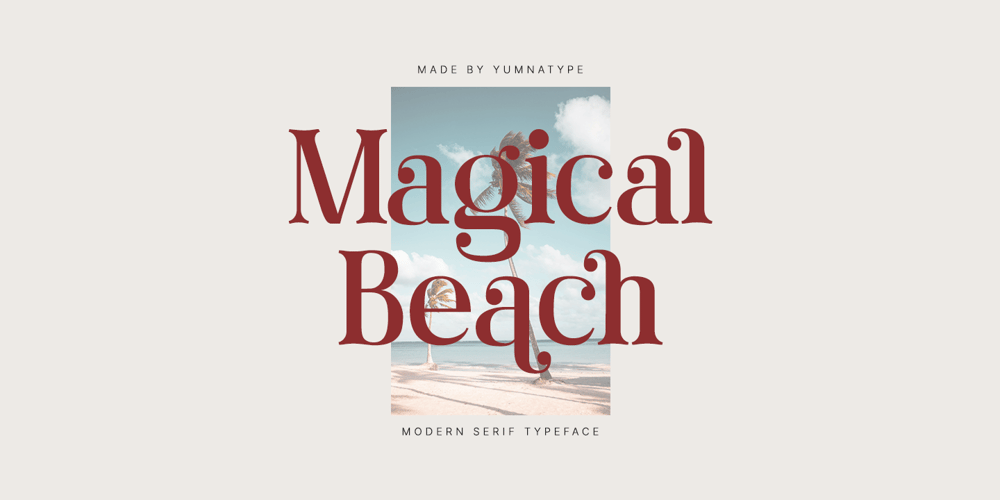
Magical Beach Font Family was designed by Donis Miftahudin and published by Yumna Type. Magical Beach contains 1 styles and family package options. Magical Beach is a captivating serif font that transports you to the enchanting shores of a modern paradise. Inspired by the natural beauty of coastal landscapes and the timeless elegance of serif typography, Magical Beach strikes the perfect balance between tradition and innovation. Each letter is meticulously crafted with clean lines and subtle curves, exuding a sense of sophistication and charm. Despite its classic serif roots, Magical Beach is designed with a modern twist, featuring sleek and streamlined letterforms that lend it a distinctly contemporary feel. In addition, enjoy the features here.Features: Stylistic Sets Multilingual Supports PUA Encoded Numerals and Punctuations Magical Beach fits in headlines, logos, posters, flyers, branding materials, greeting cards, print media, editorial layouts, and many more designs. Find out more ways to use this font by taking a look at the font preview.Thanks for purchasing our fonts. Hopefully, you have a great time using our font. Feel free to contact us anytime for further information or when you have trouble with the font. Thanks a lot and happy designing.